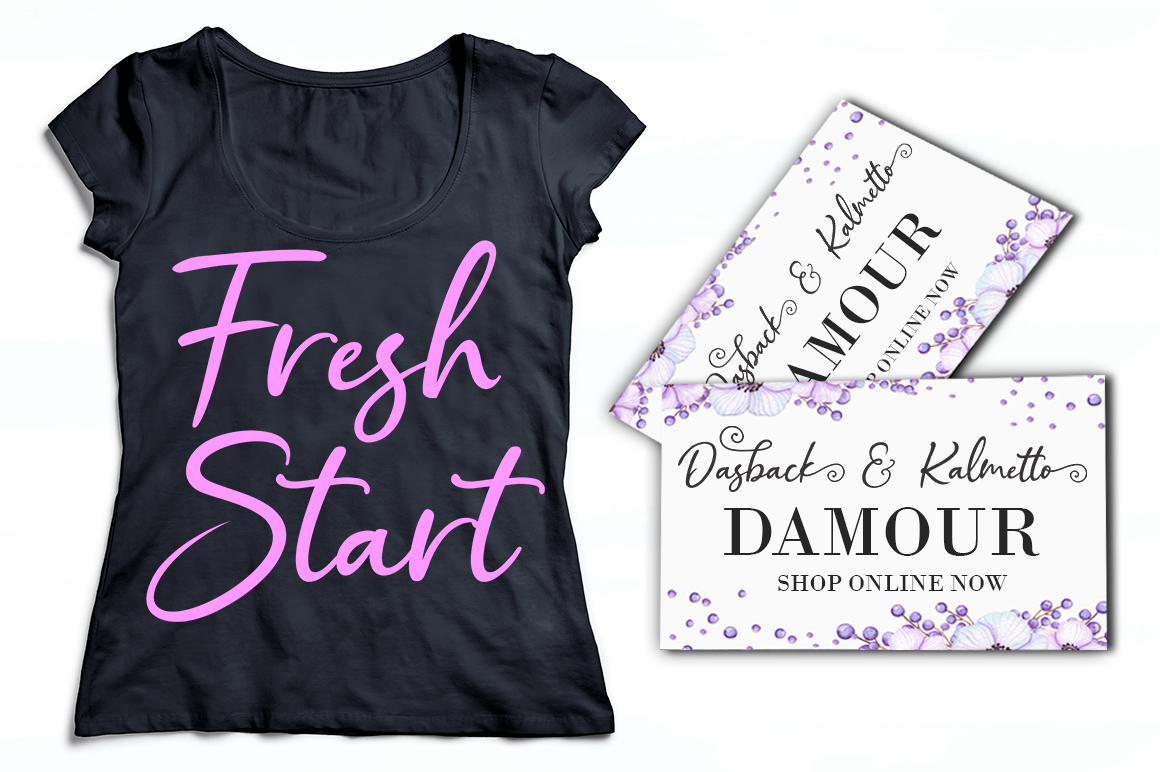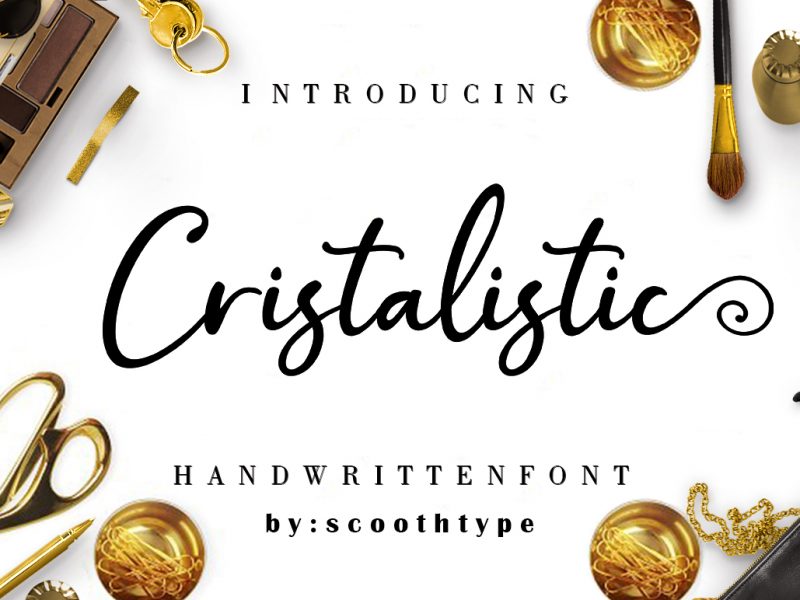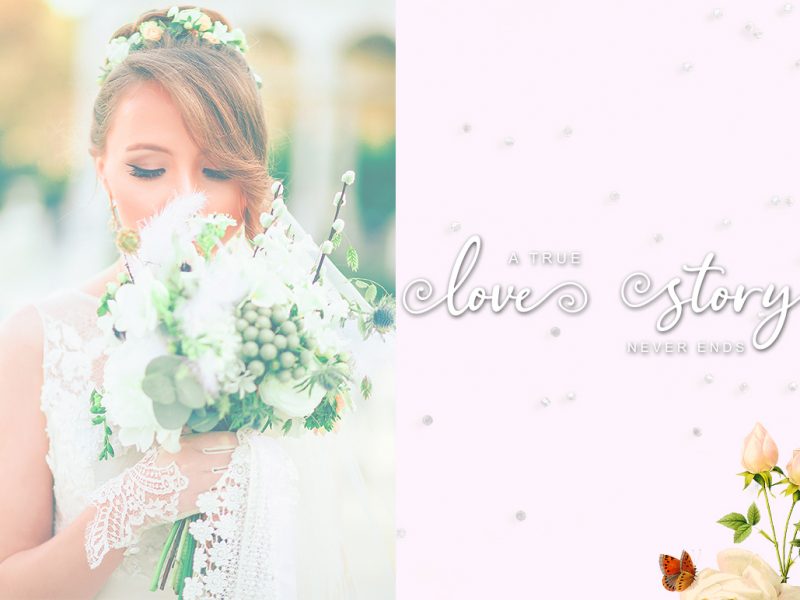
Cristalistic Script Font
Cristalistic Script is a modern handwritten font with suitable handwriting, brand projects, logos, greeting cards, news, product packaging, all including personal charm etc.
This font is equipped with upper and lower case letters, also equipped with unique and beautiful binders and alternatives and international support for most western languages.